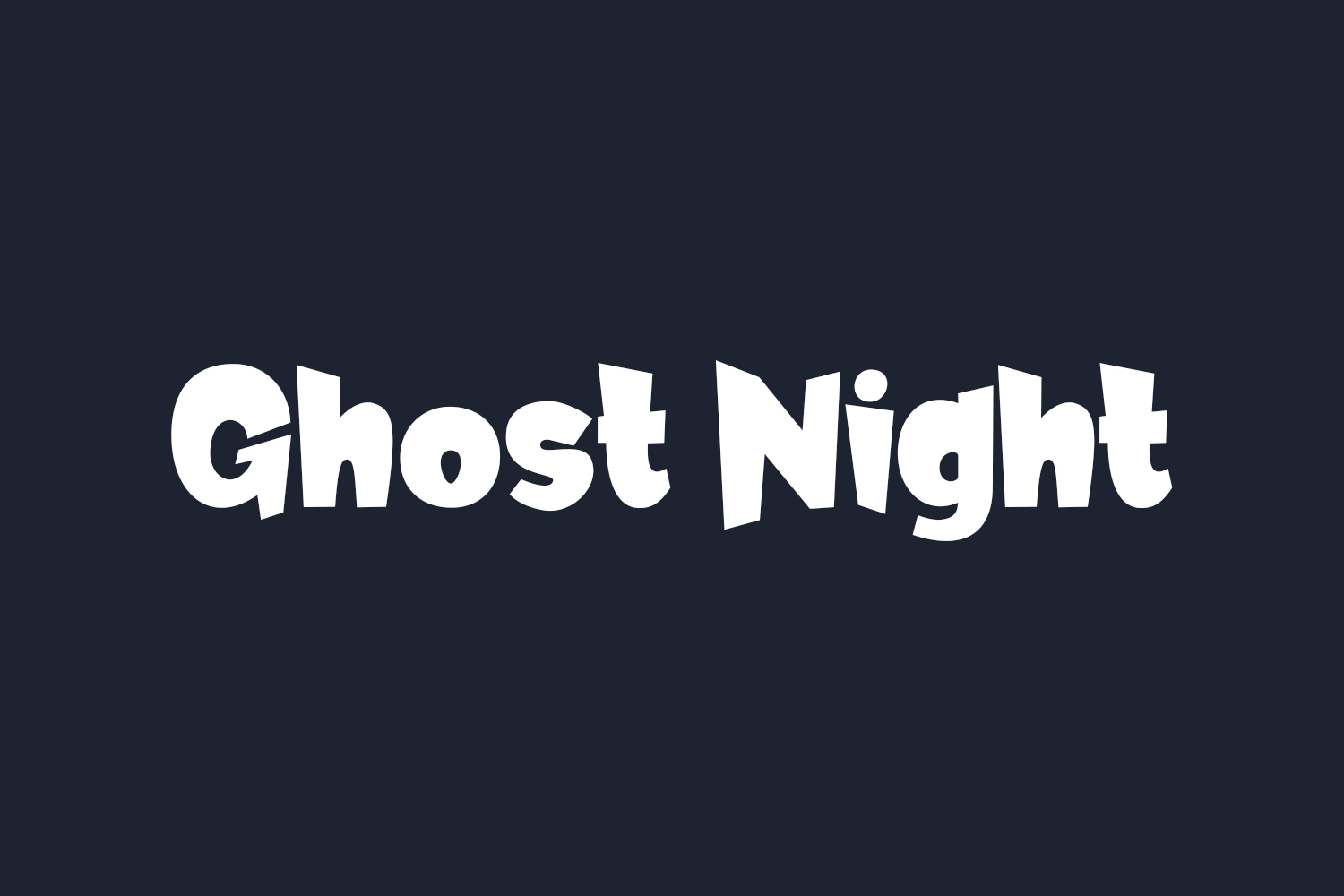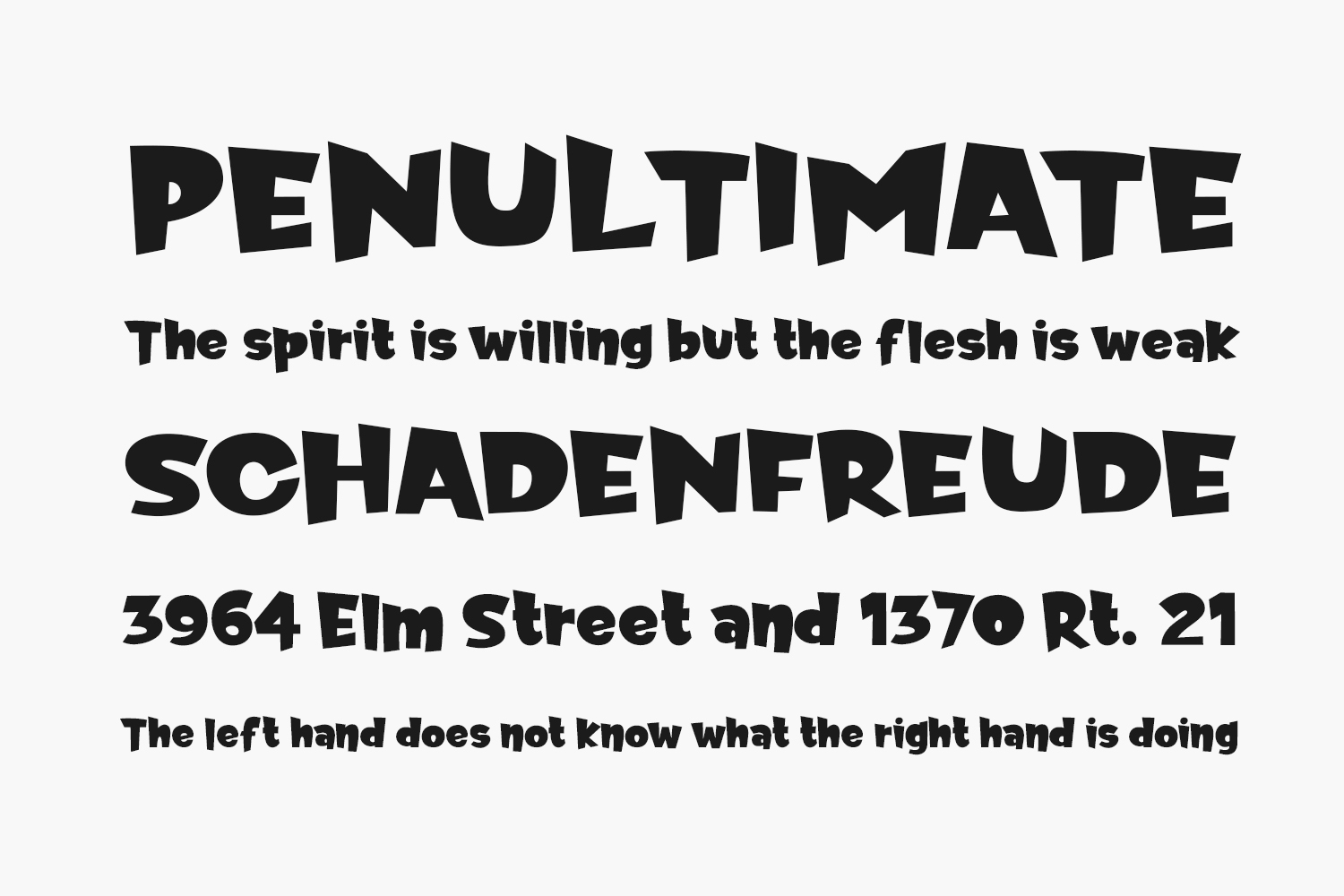
Uncover the enchanting Ghost Night Free Font – a perfect fusion of originality and style! Crafted with hauntingly exquisite details, this font is your ultimate resource for crafting spellbinding Halloween designs, spine-chilling posters, and ominous party invitations. Whether you’re in need of a Sans Font or a Display font that brings a distinctive flair, Ghost Night has all your needs met. Unleash your creative spirit and embrace the dark sophistication of this exceptional font. It’s the perfect choice for creating macabre designs that will leave a haunting impression. Ghost Night Free Font is free for personal use only. Please purchase the full version for commercial use.